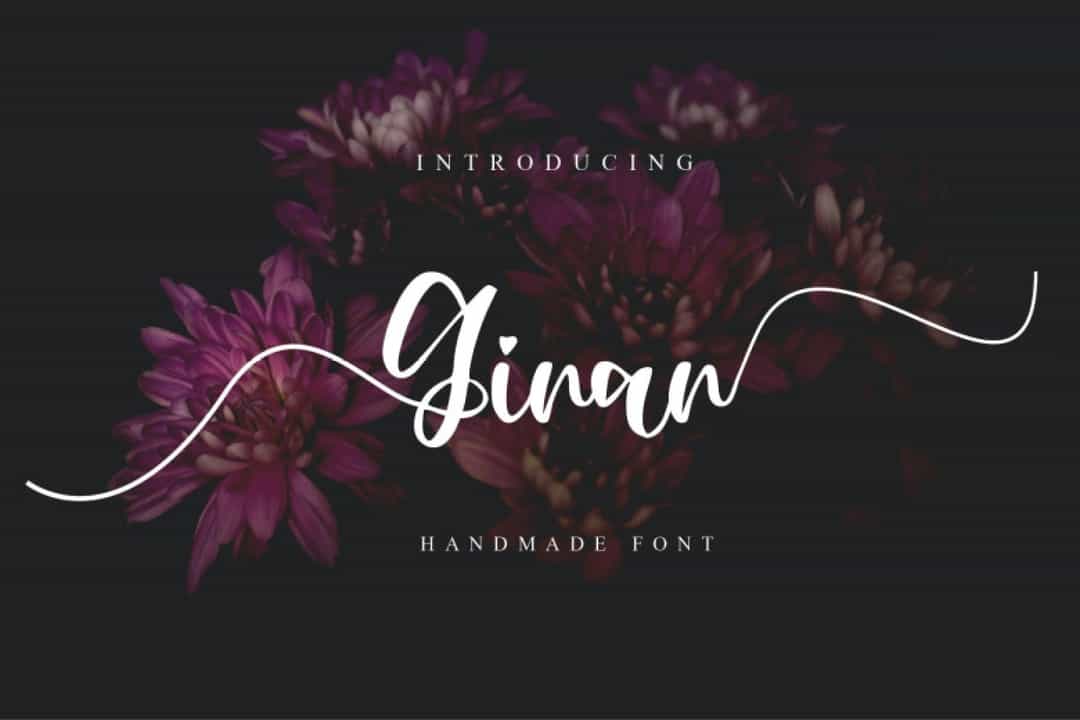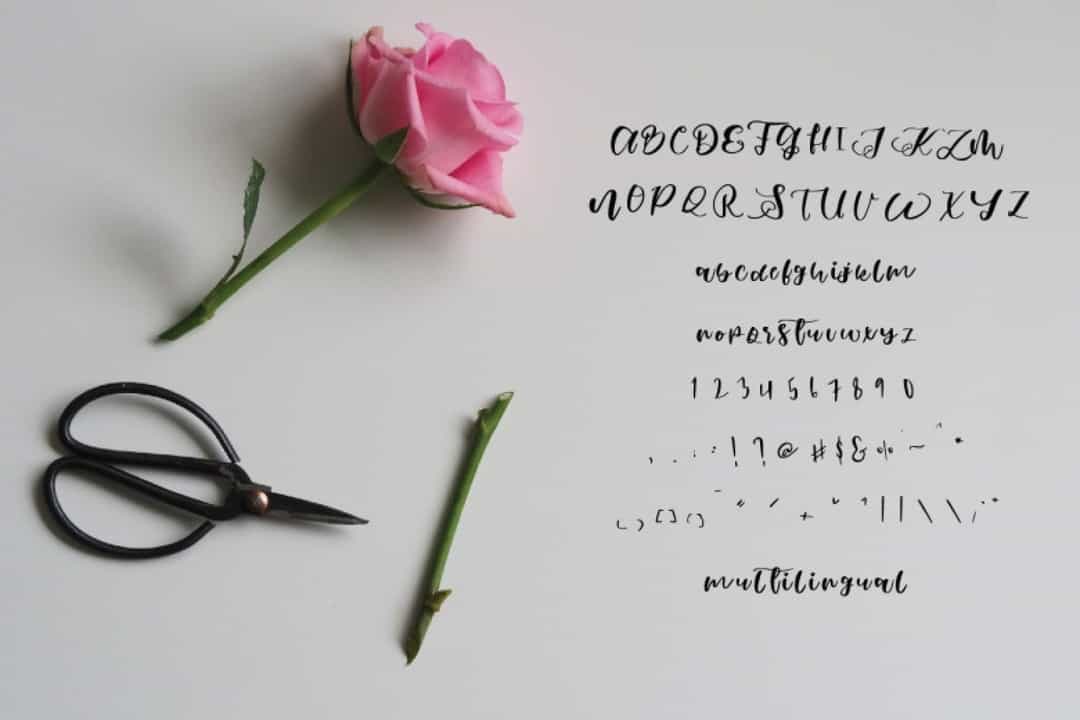
Ginani is a beautiful handwriting font with clear and fully shaped letters that make for a brilliant piece. It is suitable for logos branding, modern advertisement design, posters, quotations from books or covers of titles, editorial design of websites and blogs, cards, t-shirts, and any handwritten needs.